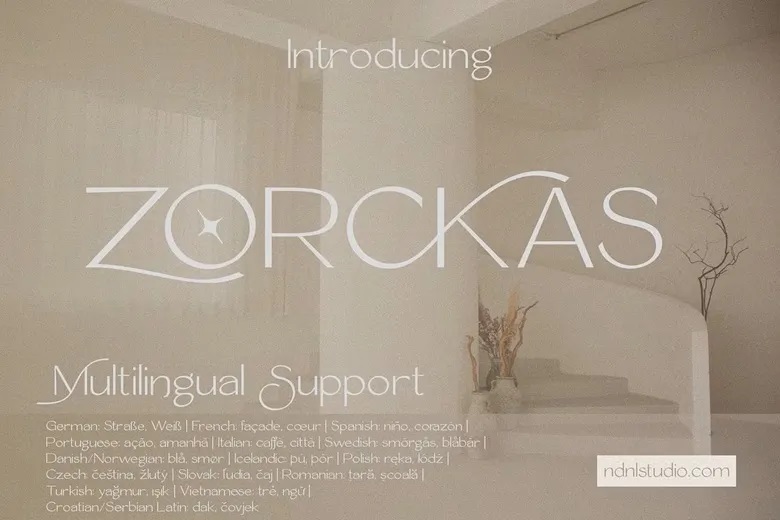
Zorckas Font
Zorckas is a modern sans-serif font with clean lines and simple geometric shapes. Its balanced design and unique details create a look that is both sophisticated and striking.
Zorckas is a good fit for projects that need both elegance and simplicity, such as branding, logos, interior design, fashion, and creative layouts. It supports multiple languages, so designers worldwide can use it.
Zorckas Sans Serif Font